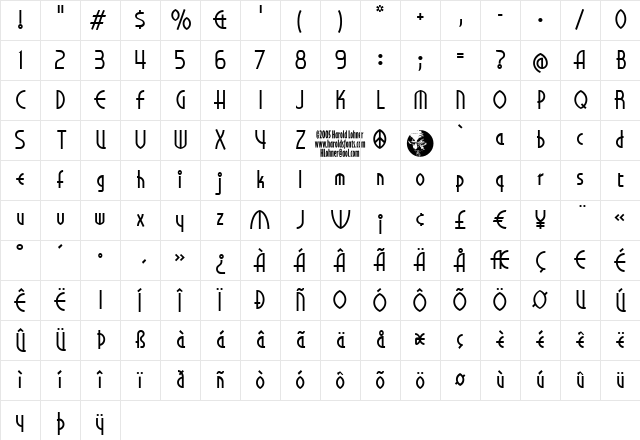
Libeled Lady Regular Free Font
Libeled Lady Regular
Complete Libeled Lady Regular glyph index. Displaying only characters natively supported by Libeled Lady Regular font.
Design Context for Libeled Lady
Libeled Lady is a composed and adaptable typeface that performs quietly and consistently across a wide range of design contexts.